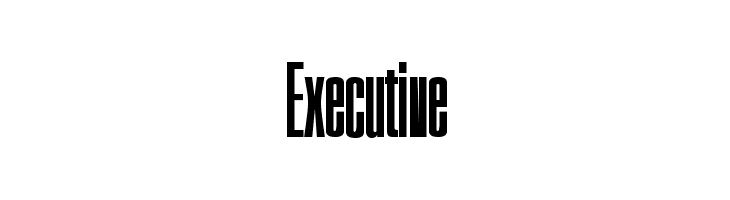
Here is the Executive Font it is the new typeface that is available for free. This typeface adds a professional touch to the design using light and thick weights.
As we know that it is the sans-serif typeface and it was designed by the artists of a Swiss studio Gavillet & Rust and Optimo Type Foundry Released this typeface in 2007.
If you are looking for a typeface that works great for the design of any UI where the main concern is spacing then this typeface is the best solution for that because of its fairly narrow letterforms and it also great pair with coca-cola font.
Swiss studio designers are planning to introduce some new weights and glyphs to this typeface so that this typeface can be used in more and more different designing fields.
For a better understanding of the design for this typeface take a look below.
We can see the usage of this typeface inside:
• Video games
• Annual reports
• Video games
• Promotional videos
• Advertisements
• Magazines
• Animated logos
• Presentations
• Directories
• Posters, banners, and billboards
What Type of Font Is Executive?
This Font is the new typeface that is available for free. This typeface adds a professional touch to the design using light and thick weights.
What’s the Closest Font to Executive?
The Letter Gothic font is very close to the Executive font.